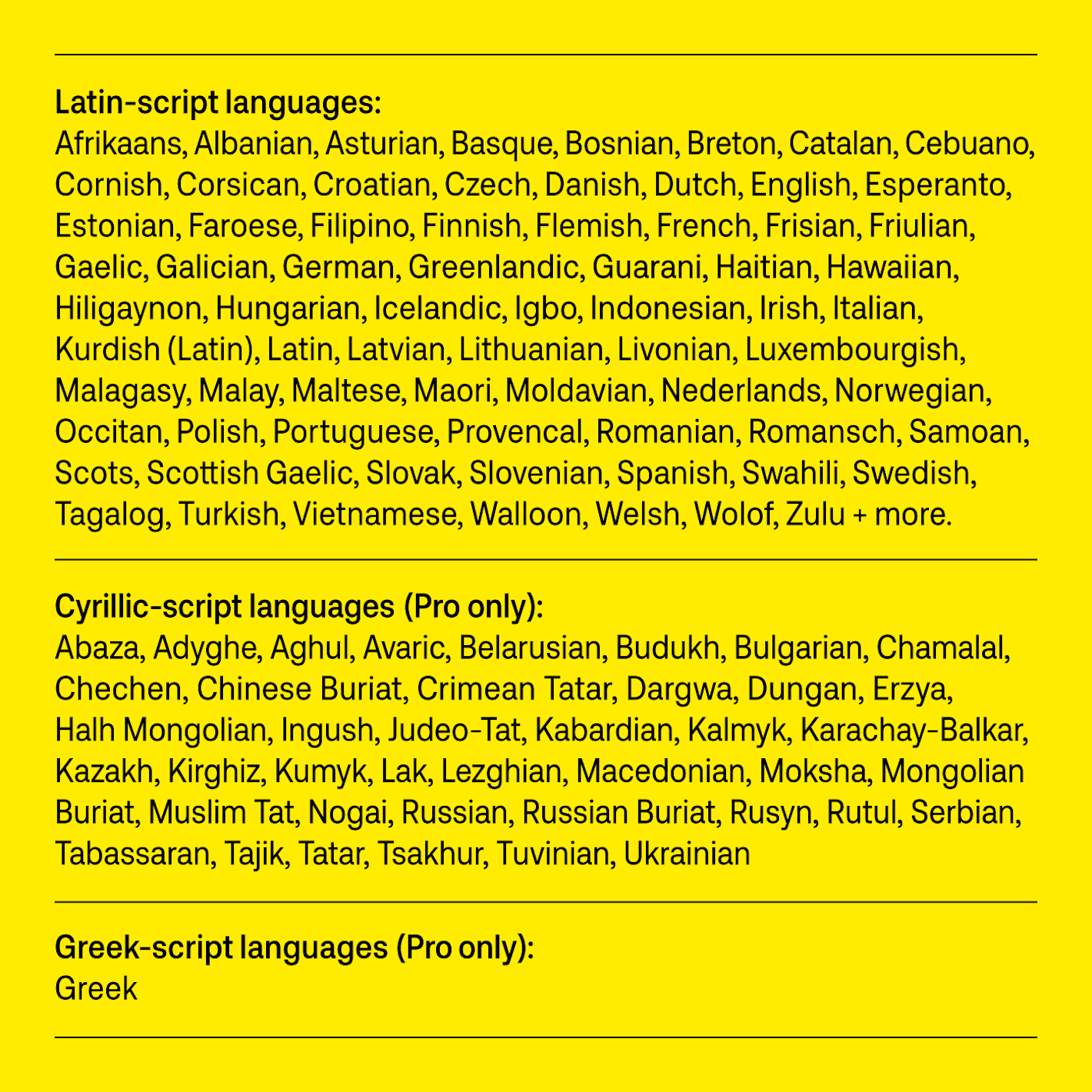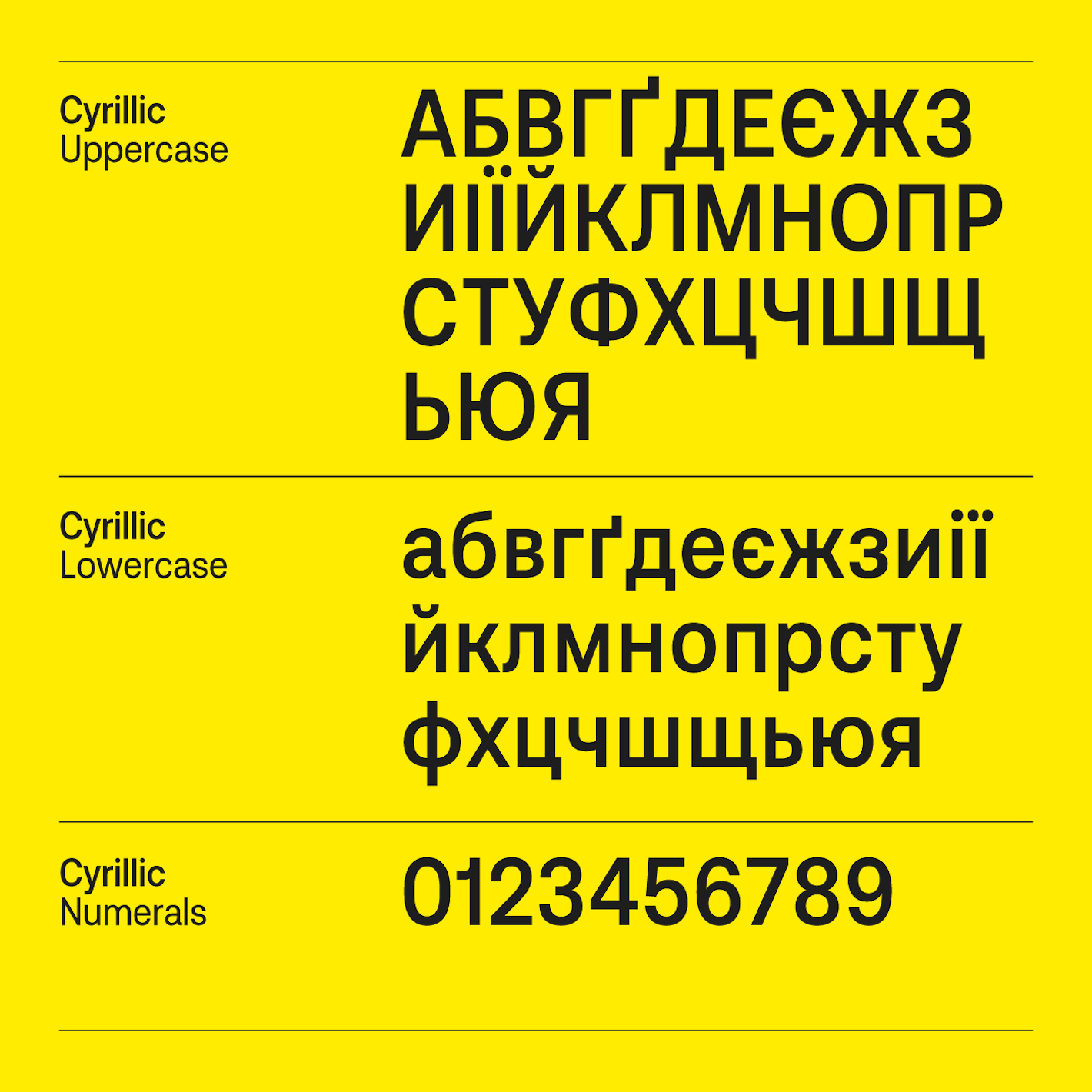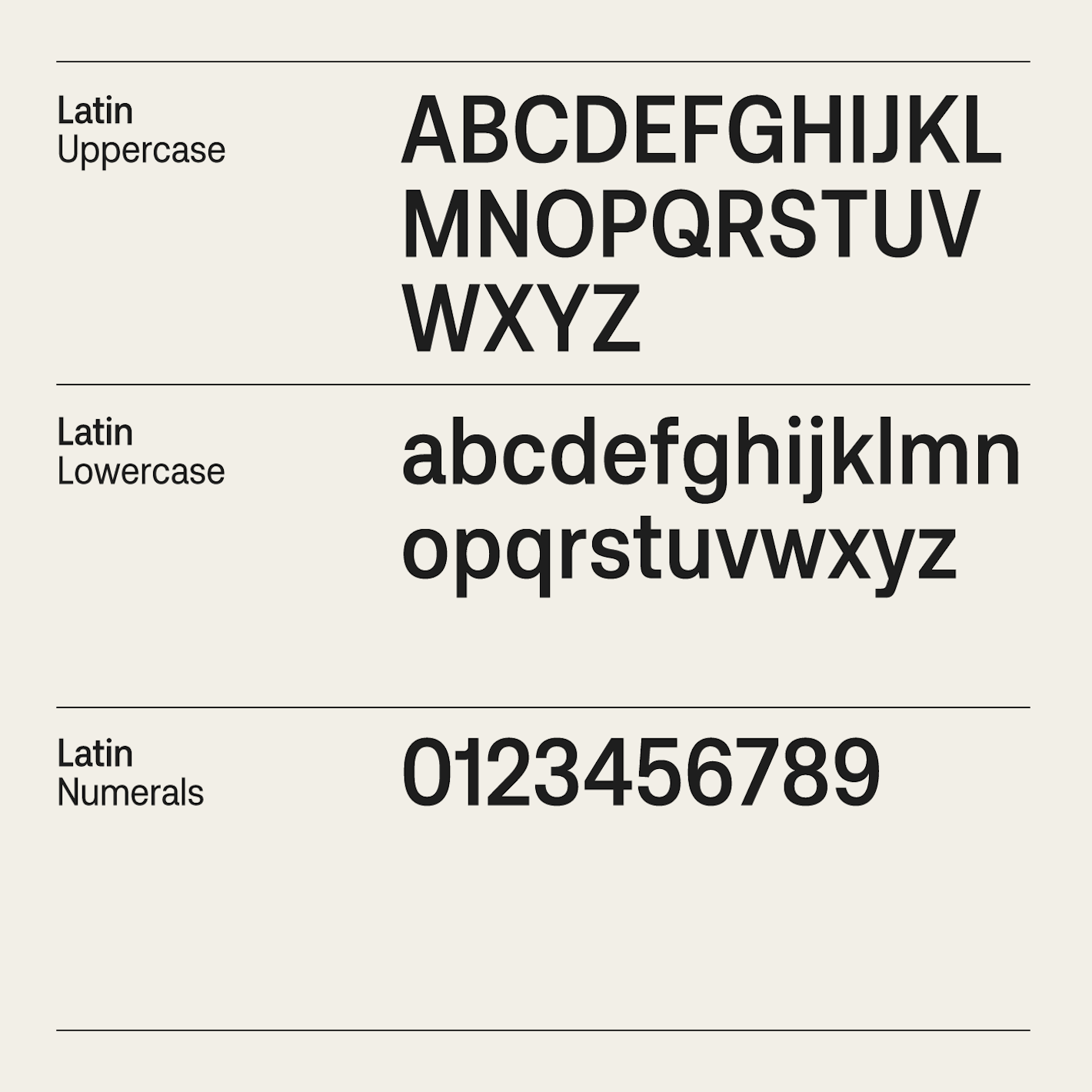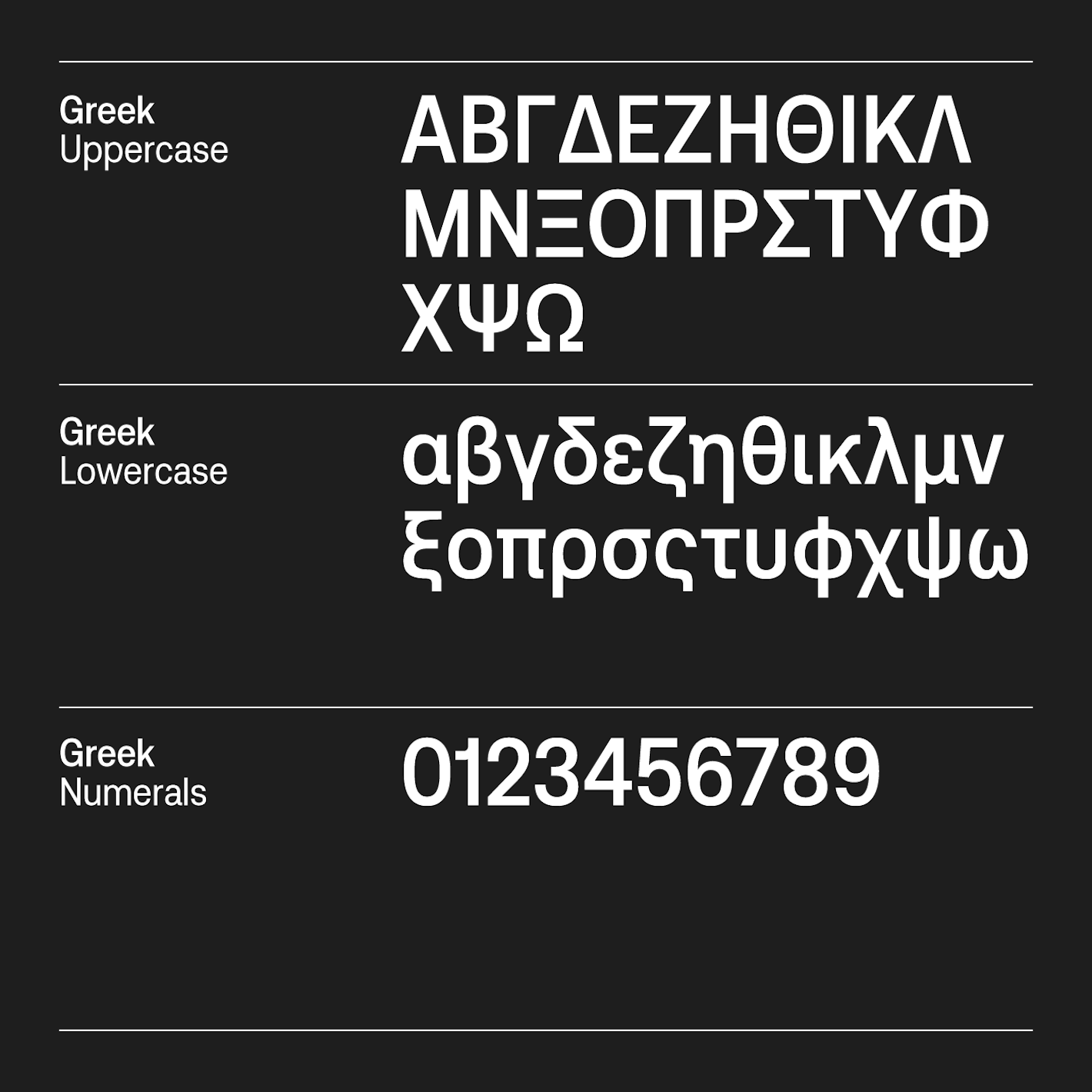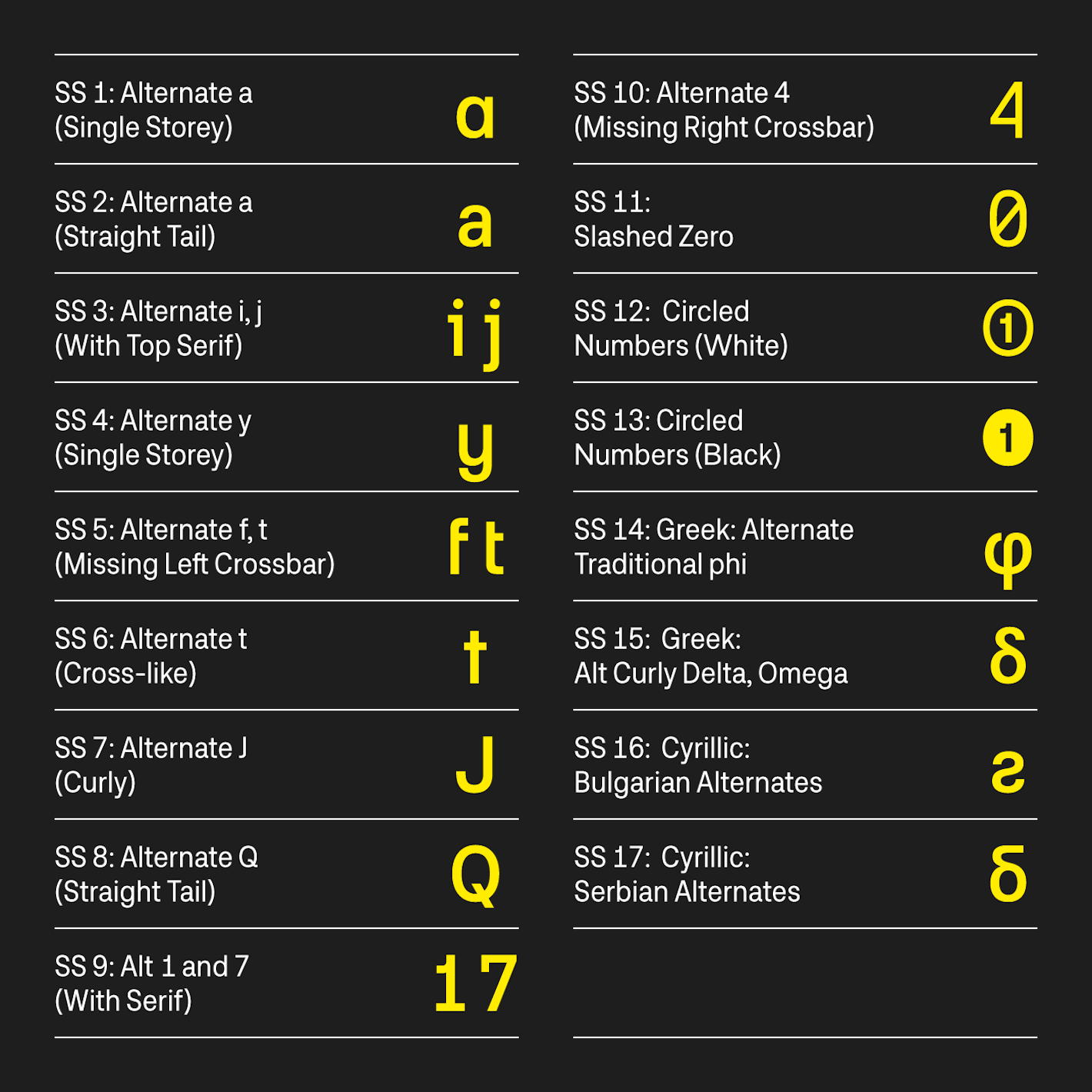
Aeonik Condensed distills the core features of the Aeonik family into a narrower form, offering the same mechanical precision and timeless aesthetics but with a space-saving design. Ideal for projects where horizontal space is at a premium, Aeonik Condensed retains the clean Swiss Grotesque feel, closed apertures, and perpendicular stroke endings that define the Aeonik identity.
Available in eight weights, from Thin to Black, with matching italics, Aeonik Condensed offers the flexibility to tackle any design challenge. For even greater control, variable font technology enables precise fine-tuning of weight. It supports an extensive range of languages, including most European languages written in the Latin script, as well as Vietnamese, multiple Cyrillic-based languages, and Greek. Language support options can be selected at checkout.
Aeonik Condensed is equipped with a robust set of OpenType features, including discretionary ligatures, old-style and tabular numerals, fractions, case-sensitive punctuation, symbols, geometric shapes, circled numerals, and arrows. Its stylistic sets across Latin, Greek, and Cyrillic offer alternate designs for characters such as ‘a,’ ‘t,’ and ‘j,’ providing flexibility to adapt to any project’s needs.
Aeonik Condensed’s narrower proportions make it a perfect choice for headlines, posters, or branding projects where space efficiency is key. It pairs effortlessly with the rest of the Aeonik family, offering designers the flexibility to combine it with the classical Aeonik, Aeonik Mono, or Aeonik Fono to create dynamic and cohesive typographic systems.